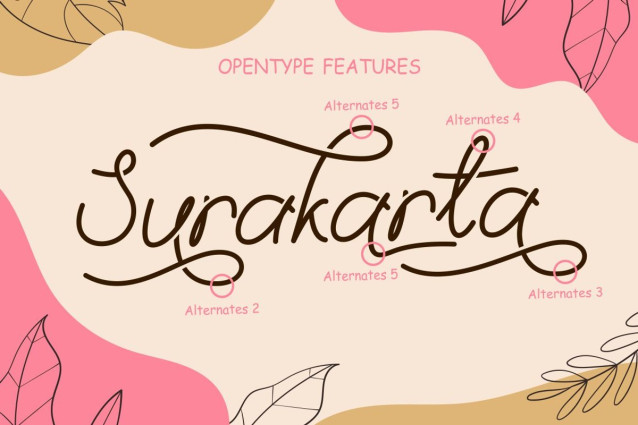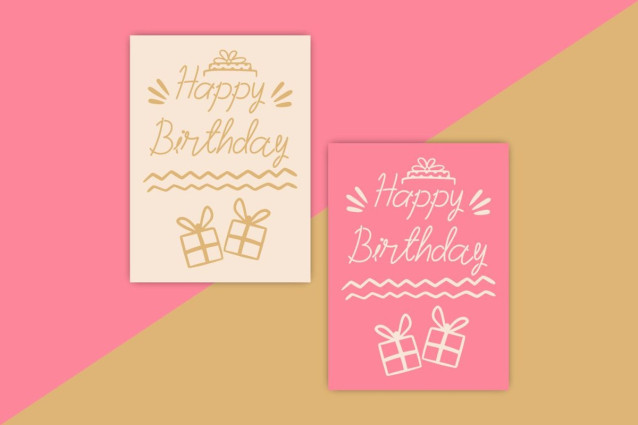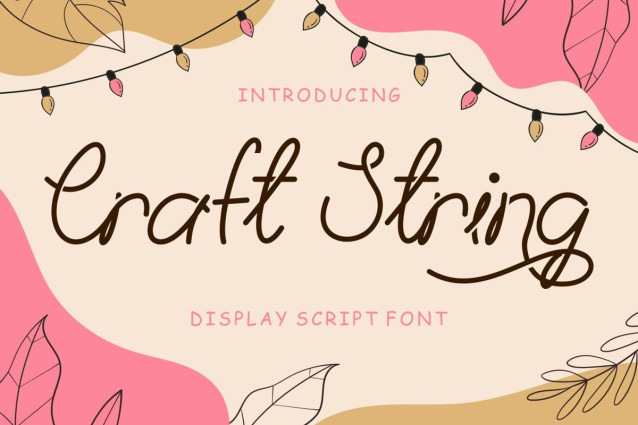
Craft String Font
Craft String Font – Display Script Font. This script is a special script or typeface whose emphasis is reversed from general thinking. Craft String is a casual script font inspired by monoline hand written, pop cultures and urban culture
Craft String is casual and fun script that stands out from the crowd, Craft String font that perfect for story books, illustrations, comic books, t-shirts, posters, greeting cards, logos, branding, stickers, svg, crafting and all for display purposes.
The alternative characters were divided into several Open Type features such as Swash, Stylistic Sets, Stylistic Alternates, Contextual Alternates, and Ligature. The Open Type features can be accessed by using Open Type savvy programs such as Adobe Illustrator, Adobe InDesign, Adobe Photoshop Corel Draw X version, And Microsoft Word. This font is also support multi language.